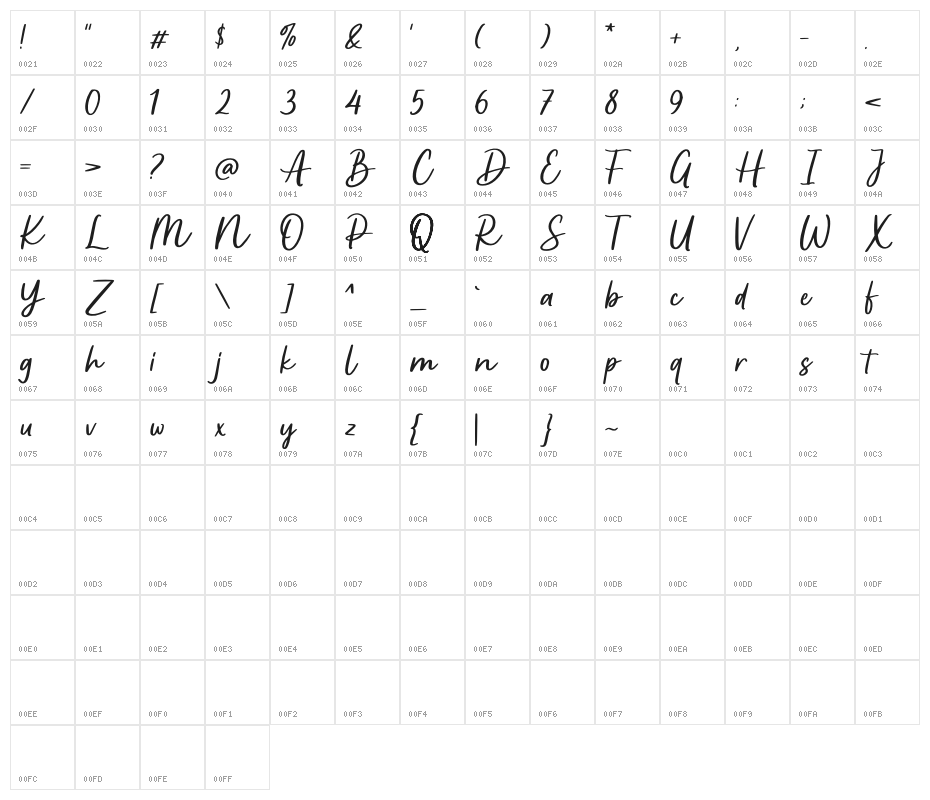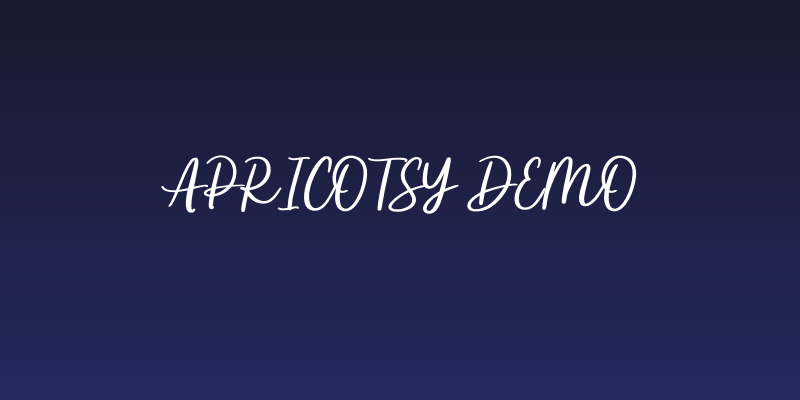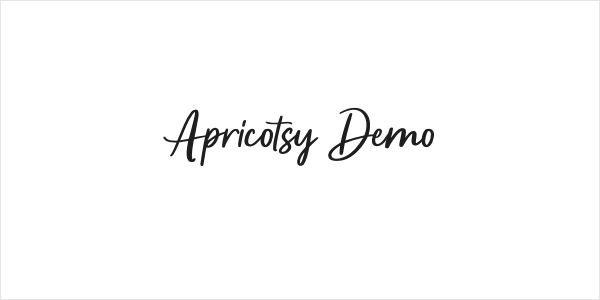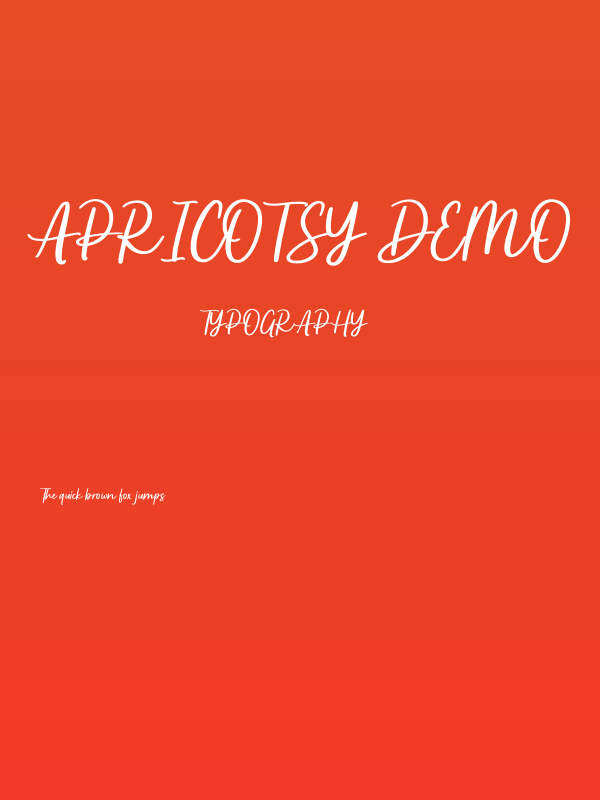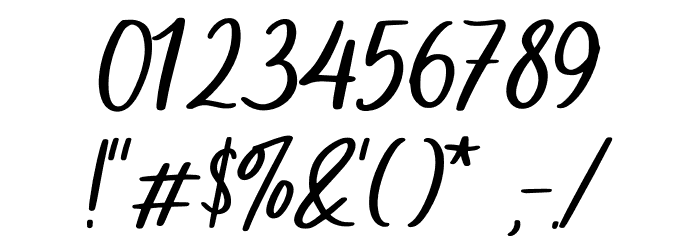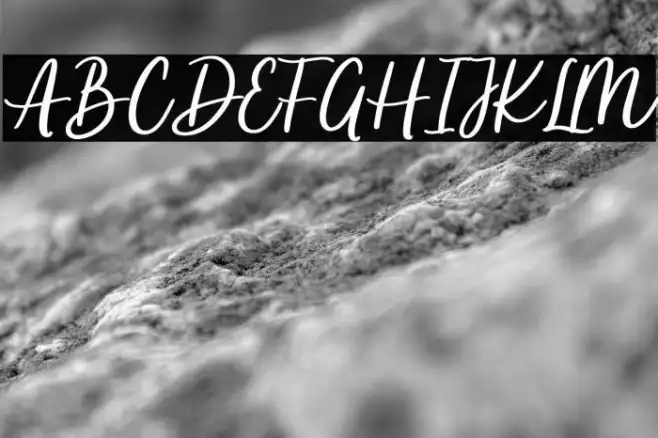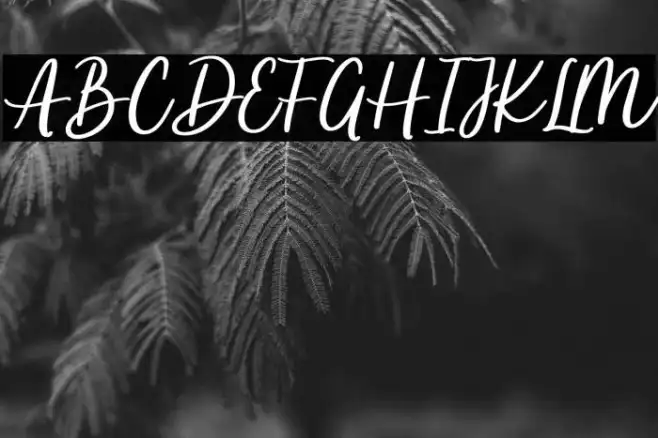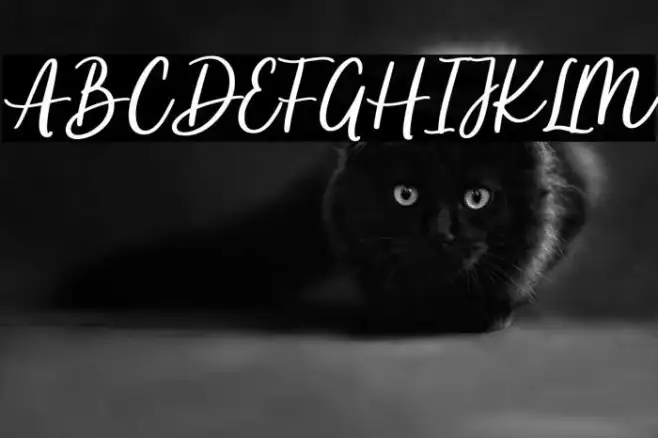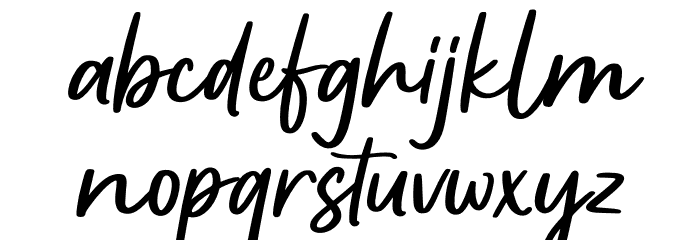
Apricotsy Demo Font
Apricotsy Demo Description
This font exudes a lively and expressive character with its handwritten style, featuring fluid and connected strokes that mimic natural handwriting. The uppercase letters are bold and slightly slanted, giving a sense of movement and dynamism. The lowercase letters maintain a consistent flow, with some letters extending below the baseline, adding to its casual and friendly appearance. The numbers are clear and legible, matching the overall style of the letters. Special characters are creatively integrated, maintaining the playful and informal tone. This font is ideal for projects that require a personal touch, such as invitations, greeting cards, or branding materials that aim to convey warmth and approachability.
| Proposed Projects | Ideal for invitations, greeting cards, personal branding, and any project needing a warm, personal touch. |